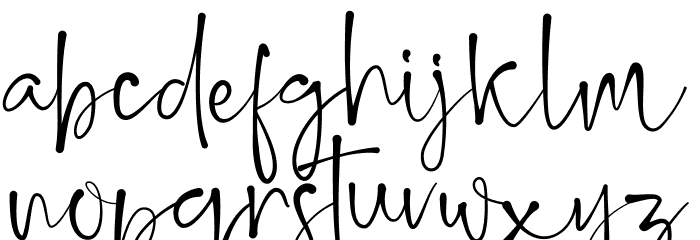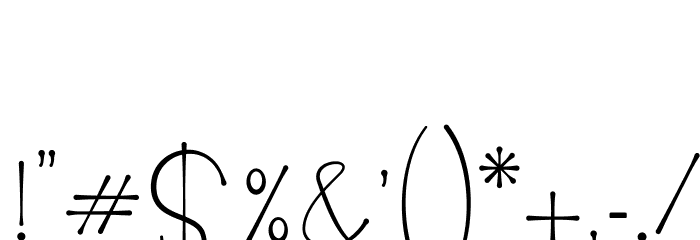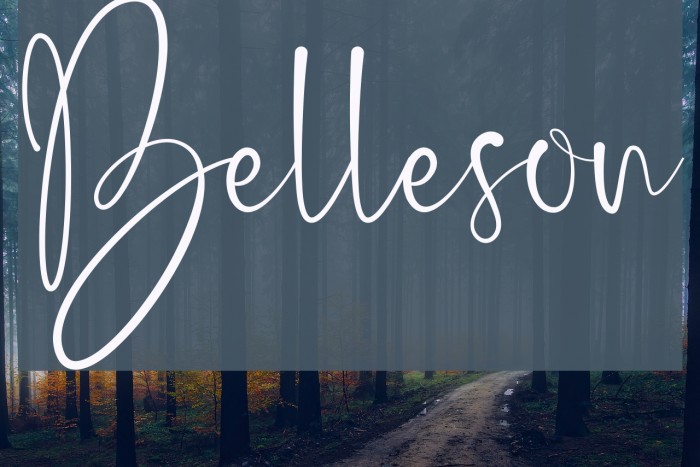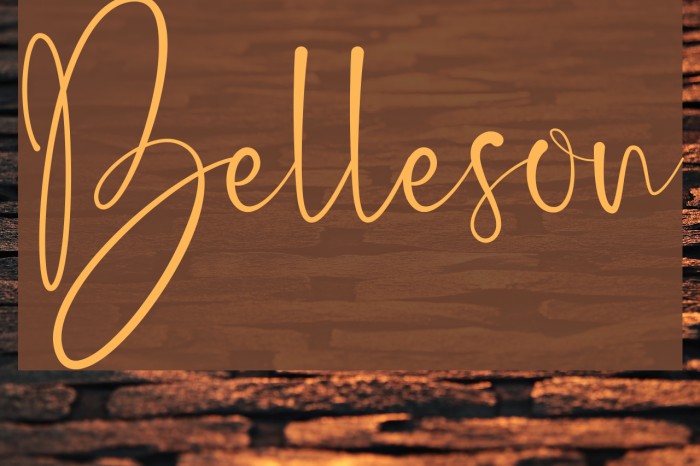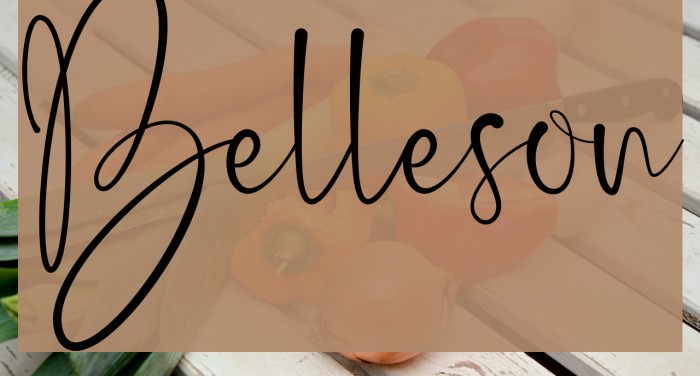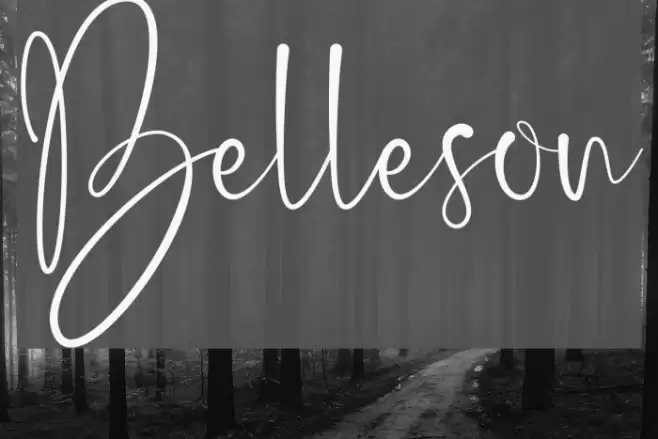
Belleson Font
This font features a whimsical, handwritten style with a playful and artistic flair. The uppercase letters are tall and slender, with unique loops and curves that give them a distinctive character. The lowercase letters maintain a consistent flow, with some letters extending below the baseline, adding to the font's dynamic appearance. The numbers and special characters are equally expressive, maintaining the overall aesthetic with their fluid lines and creative forms. This font is perfect for projects that require a personal touch or an artistic vibe.
A whimsical, handwritten font with playful loops and curves.
- Proposed Projects: Ideal for greeting cards, invitations, branding, and creative projects that require a personal touch.
- Use Case: Headlines, Logos, Creative projects